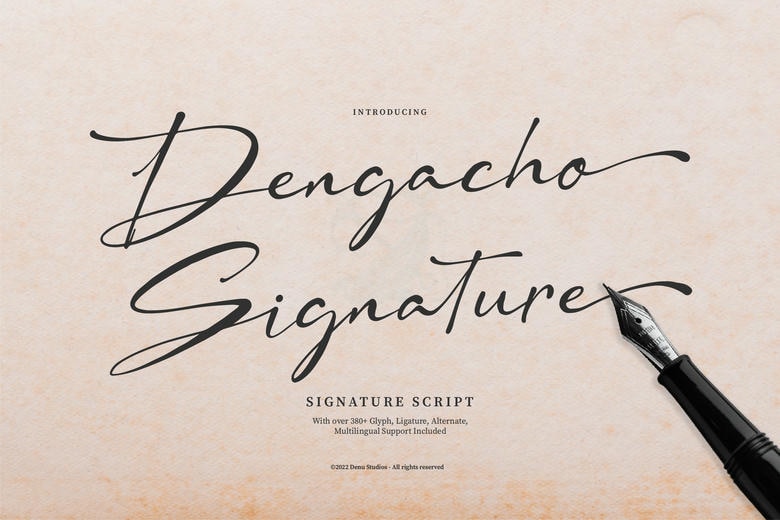
Dengacho Signature Font
Dengacho Signature is a refined and stylish script font that mimics the beauty of handwritten signatures. Its smooth, flowing strokes make it ideal for branding, wedding invitations, luxury logos, and personal projects. With ligatures and alternates, it adds a natural, artistic touch to any design.
Dengacho Signature Script Font